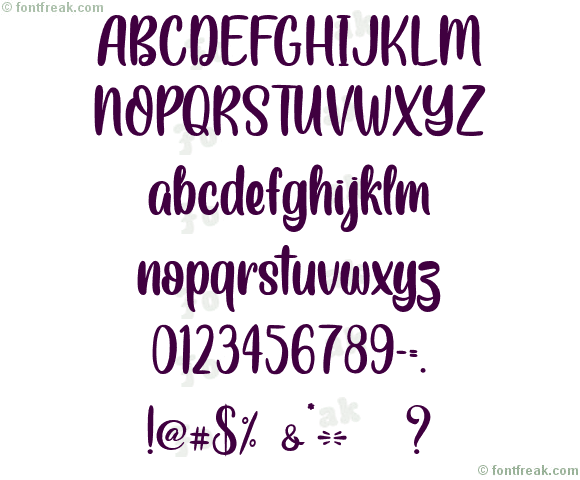
CrownyPersonalUse
About CrownyPersonalUse
The CrownyPersonalUse font, crafted by Suthi Srisopha, is a delightful script typeface that exudes charm and personality. This font features a playful yet elegant design, characterized by its smooth curves and varying stroke weights that add a sense of dynamism. The flowing letters create a sense of warmth and approachability, making it an excellent choice for projects that require a touch of creativity and flair. The spacing is well-balanced, ensuring readability while retaining its whimsical character.
Ideal for a variety of uses, the CrownyPersonalUse font shines in wedding invitations, where its romantic style can beautifully convey heartfelt sentiments. It also works wonderfully for greeting cards, adding a personal touch to any message. Restaurant menus can benefit from its inviting appearance, enticing diners with a visually appealing layout. Additionally, this font is perfect for social media graphics, helping content creators capture attention with its engaging aesthetics.
What sets the CrownyPersonalUse font apart is its unique blend of elegance and playfulness, making it a standout choice for personal and professional projects alike. Its ability to convey a sense of joy and creativity ensures that it can elevate any design. For those seeking to make an impression, a CrownyPersonalUse font free download is an opportunity not to be missed. Grab this charming typeface and let your creativity flourish with its delightful style.